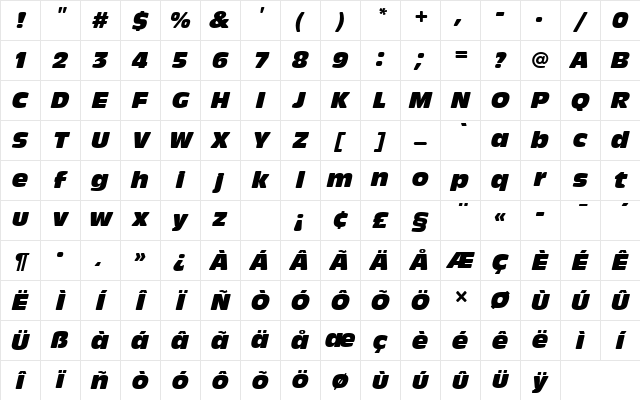
AntiqueOliTComItaRo1 wears its vintage influences proudly, with letterforms that recall mid-century signage, classic packaging, and nostalgia-driven design.
Font Pairing: Combine AntiqueOliTComItaRo1 with a simple slab or neutral sans - period-accurate companions reinforce the vintage feel without competing for attention.
Pro Tip: Lean into AntiqueOliTComItaRo1's period character by pairing it with aged paper textures, muted colour palettes, and vintage illustration styles.